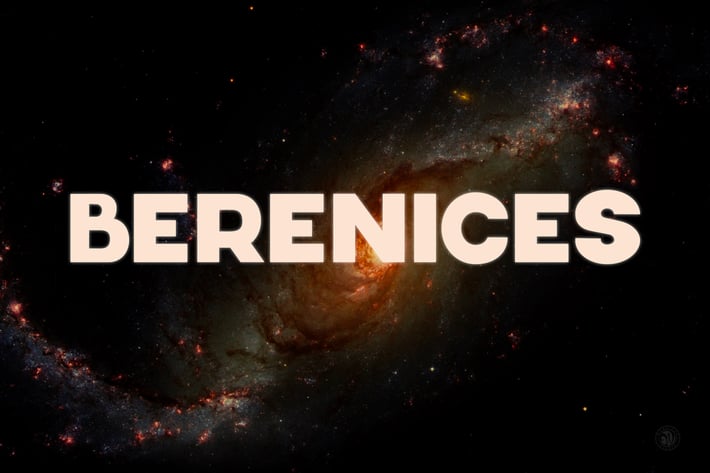
Berenices Font
Berenices - all caps sans serif font. Itβs clean and universal. Best for logos, branding or heading.
- Uppercase letters
- Numbers & punctuation